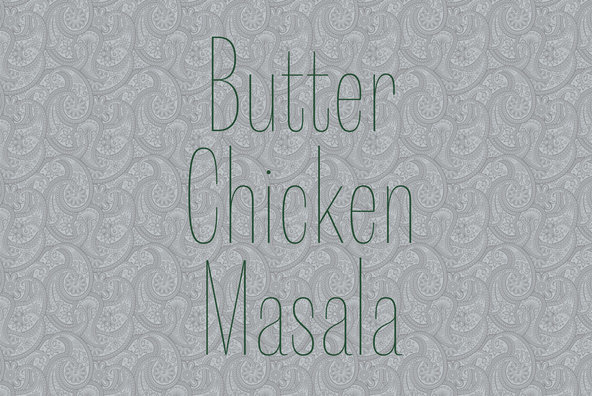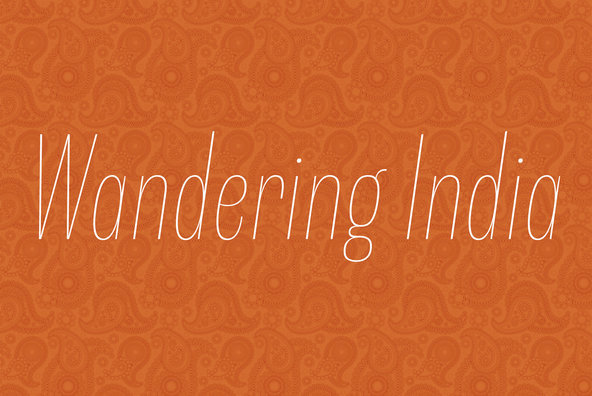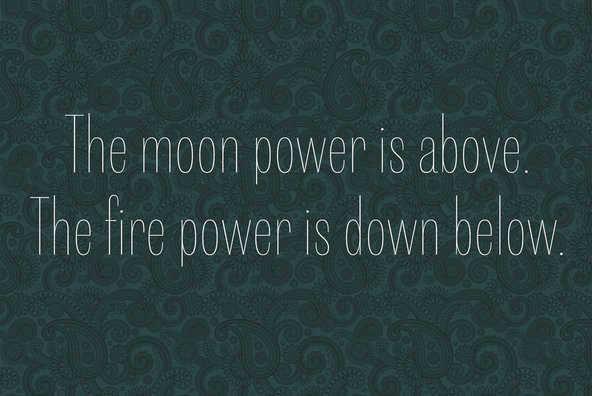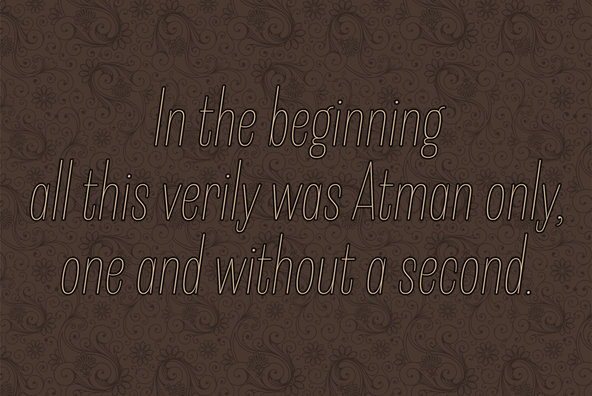
Shiva font family is very narrowed family for text and titling. Even though shiva have very thin strokes, they give strong, impactive and dignified image. a,e,f,g & y in Roman and g & y Italic have their alternate glyphs that can be used with OpenType salt feature.